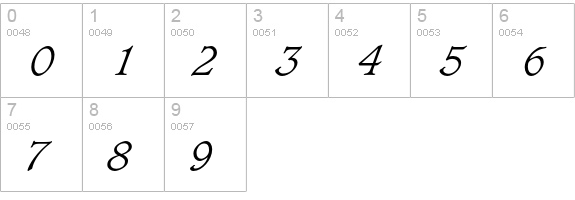
Caxton Light Italic is a refined, elegant, italic variant in the Caxton typeface family \xE2\x80\x94 well suited to elegant body text, refined sub-headings, and luxury branding.
Caxton Light Italic font exudes elegance and sophistication with its delicate, slanted design. The graceful curves and subtle strokes of this typeface convey a sense of refined beauty, making it perfect for adding a touch of sophistication to any project. The light weight of the font gives it a delicate and airy appearance, making it ideal for use in elegant designs and high-end branding. What makes Caxton Light Italic even more appealing is that it is available for free download at FontsMarket.com. This means that you can easily access this stunning font and use it in your projects without any cost. Whether you're working on a wedding invitation, a logo design, or a website layout, Caxton Light Italic will bring a touch of class and style to your work. Download it now and elevate your designs with this exquisite typeface.